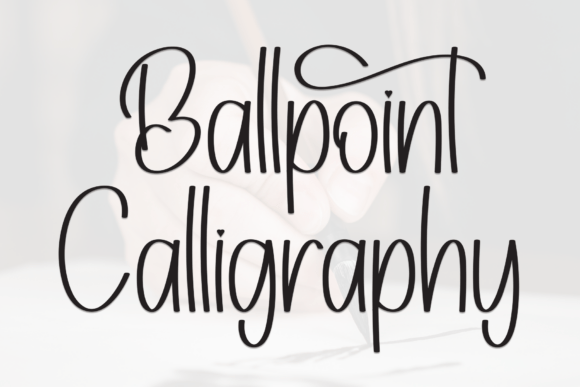
Introducing Ballpoint Calligraphy Font: Elevate Your Designs with Elegance and Modern Charm
In the world of typography, calligraphy fonts have always been a popular choice for designers seeking to add a touch of elegance and sophistication to their work. One such font that has gained significant attention in recent times is the Ballpoint Calligraphy Font. This stylish script font is a perfect blend of traditional calligraphy and modern charm, making it an ideal choice for a wide range of design projects.
What is Ballpoint Calligraphy Font?
Ballpoint Calligraphy Font is a beautifully crafted script font that features fluid strokes, graceful curves, and carefully balanced letterforms. The font is designed to capture the beauty of hand-drawn calligraphy with a contemporary edge, making it perfect for designers who want to add a touch of personality to their work.
The font’s unique design is inspired by the fluidity of handwritten calligraphy, with each letterform carefully crafted to create a sense of movement and flow. The result is a font that exudes elegance and modern charm, making it suitable for a wide range of design applications.
Key Features of Ballpoint Calligraphy Font
So, what makes Ballpoint Calligraphy Font so special? Here are some of its key features:
- Fluid Strokes: The font features fluid strokes that give it a natural, handwritten feel.
- Graceful Curves: The letterforms are designed with graceful curves that add to the font’s elegance and sophistication.
- Carefully Balanced Letterforms: Each letterform is carefully crafted to create a sense of balance and harmony.
- Contemporary Edge: The font has a contemporary edge that makes it perfect for modern design projects.
Use Cases for Ballpoint Calligraphy Font
Ballpoint Calligraphy Font is a versatile font that can be used for a wide range of design projects. Here are some of the most popular use cases:
- Logos: The font is perfect for creating elegant and sophisticated logos that make a lasting impression.
- Invitations: Use the font to create beautiful invitations for weddings, parties, and other special events.
- Packaging: The font is ideal for packaging design, adding a touch of elegance and sophistication to product labels and packaging.
- Social Media Graphics: Use the font to create stunning social media graphics that stand out from the crowd.
Benefits of Using Ballpoint Calligraphy Font
So, why should you choose Ballpoint Calligraphy Font for your design projects? Here are some of the benefits of using this font:
- Visual Appeal: The font delivers both visual appeal and versatility, making it perfect for a wide range of design projects.
- Sophistication: The font adds a touch of sophistication and elegance to any design, making it perfect for high-end brands and luxury products.
- Personality: The font has a unique personality that sets it apart from other fonts, making it perfect for designers who want to create distinctive and memorable designs.
Tips for Using Ballpoint Calligraphy Font
Here are some tips for using Ballpoint Calligraphy Font effectively:
- Use it sparingly: Use the font sparingly to create emphasis and add elegance to your designs.
- Pair it with other fonts: Pair the font with other fonts to create a unique and visually appealing typography.
- Experiment with colors: Experiment with different colors to find the perfect combination that complements your design.
In conclusion, Ballpoint Calligraphy Font is a stylish script font that exudes elegance and modern charm. With its fluid strokes, graceful curves, and carefully balanced letterforms, it captures the beauty of hand-drawn calligraphy with a contemporary edge. Ideal for logos, invitations, packaging, and social media graphics, it adds a touch of sophistication and personality to any design. With its natural flow and refined details, this font delivers both visual appeal and versatility, making it a must-have for designers who want to elevate their designs to the next level.